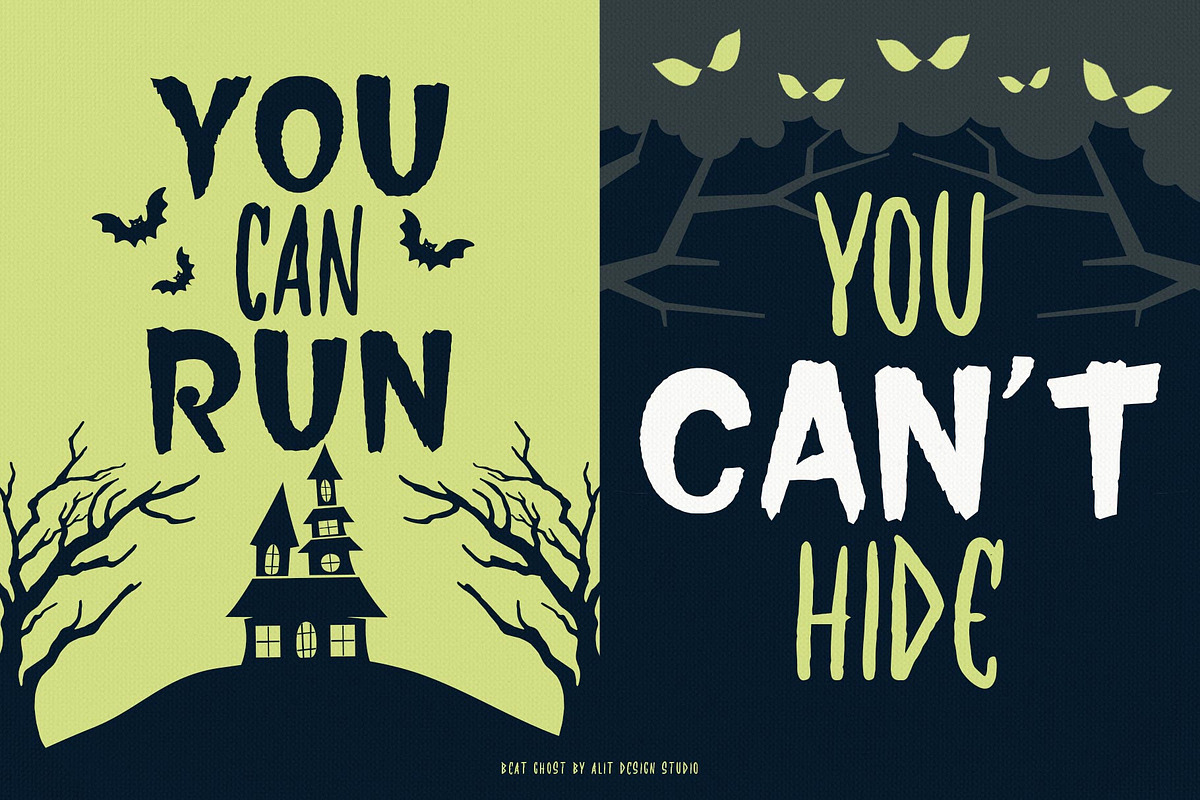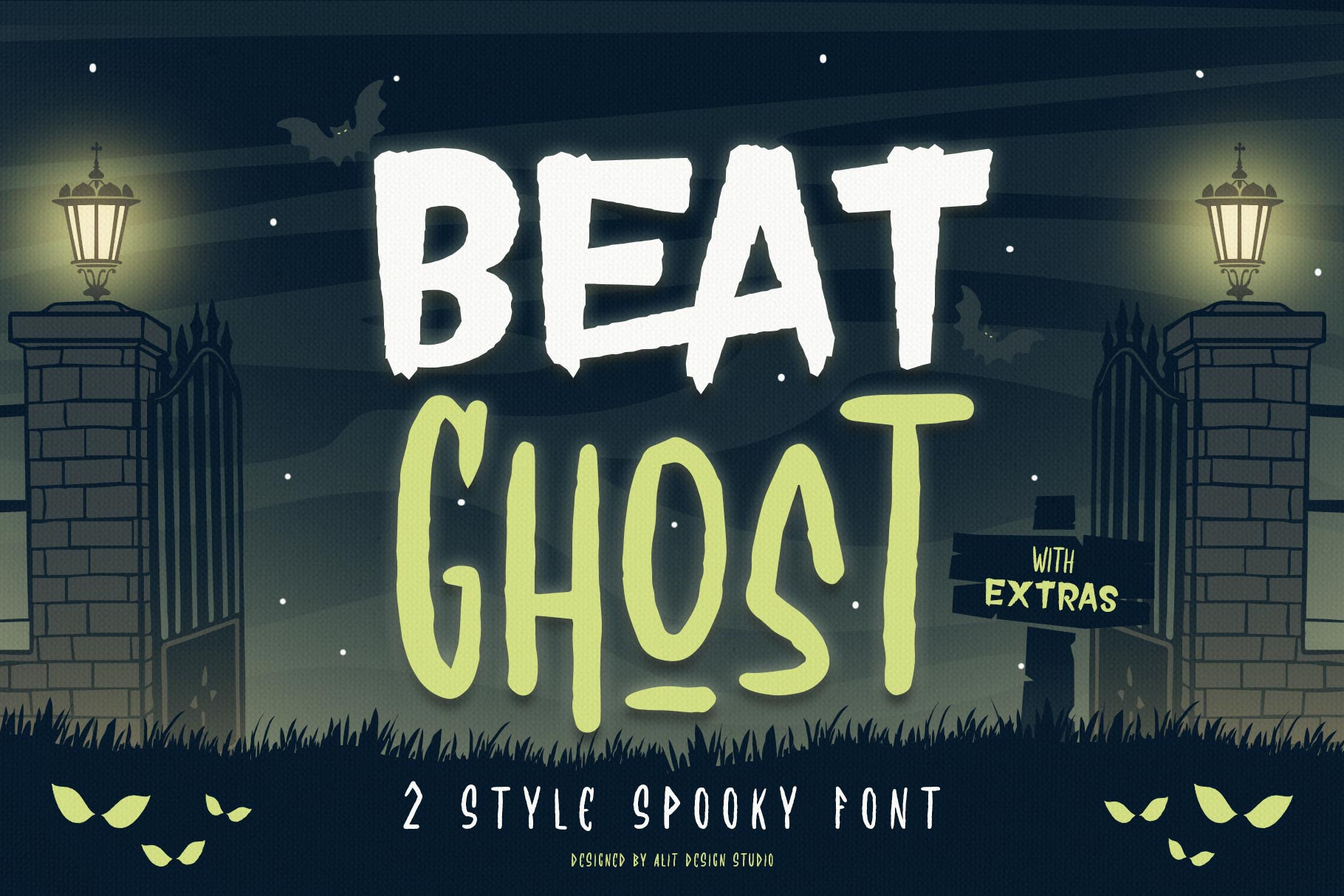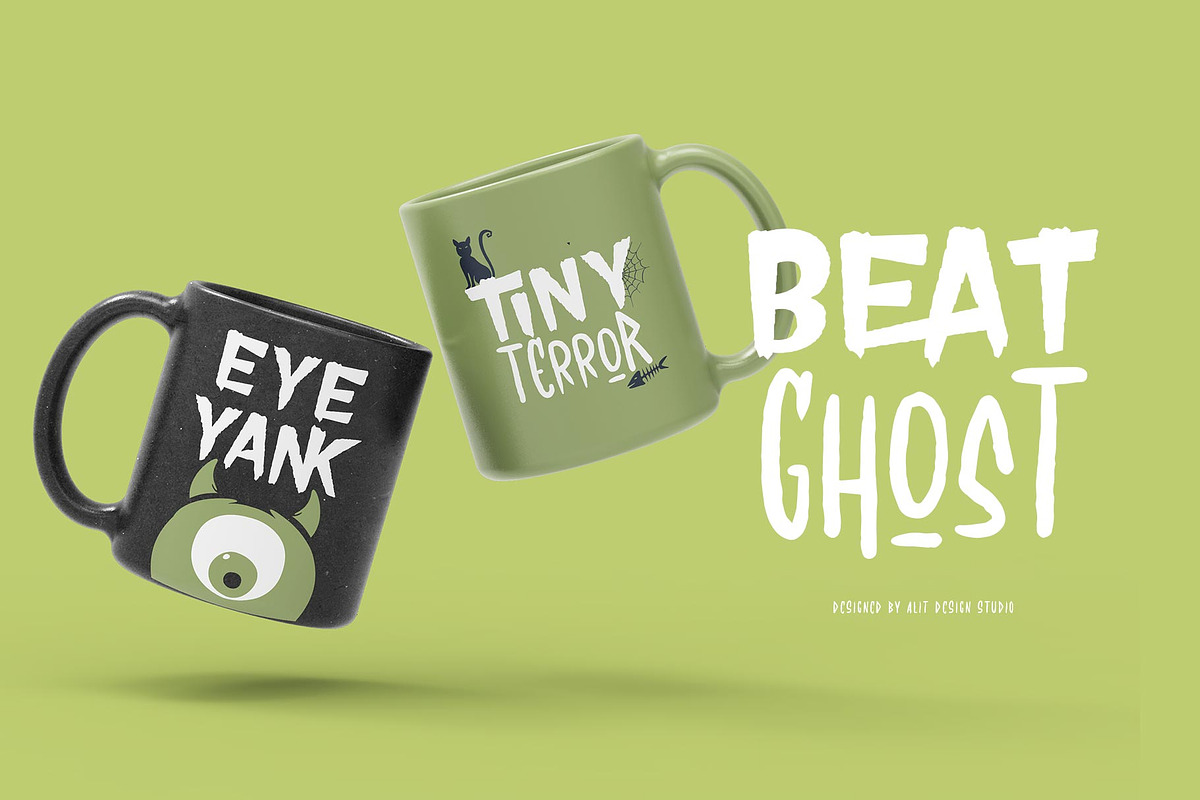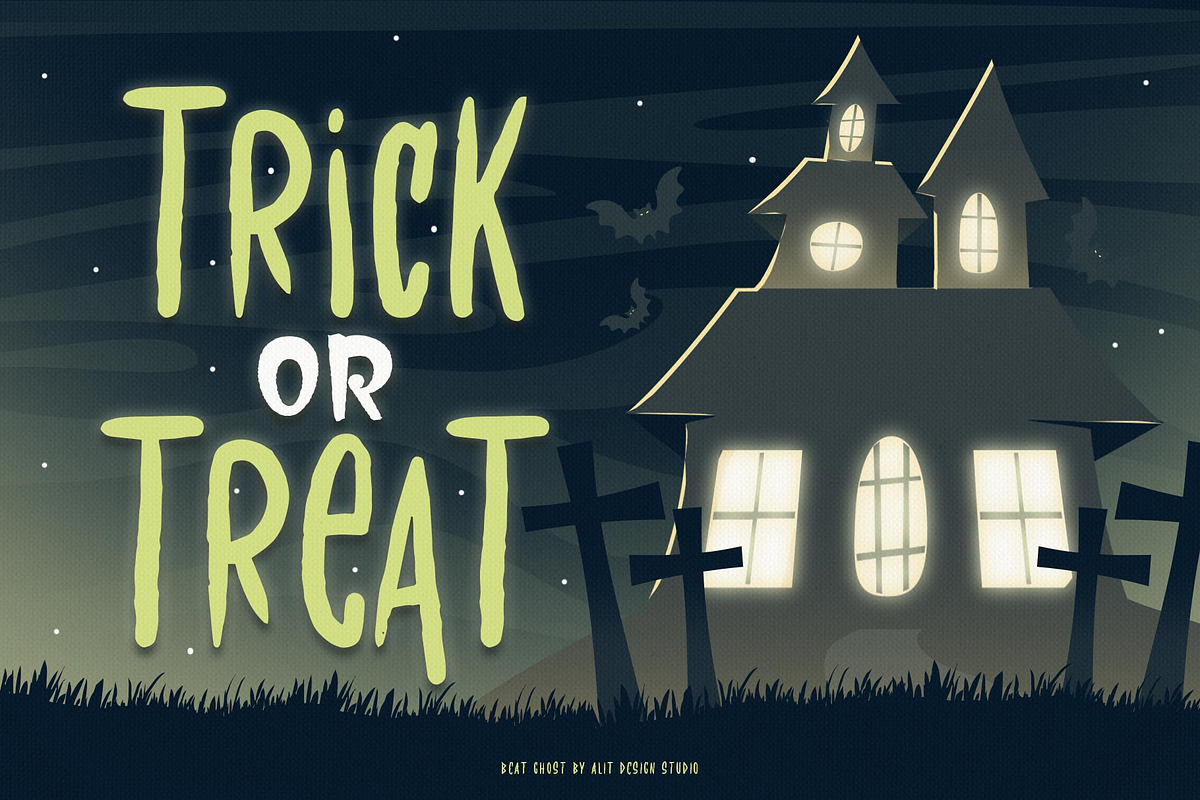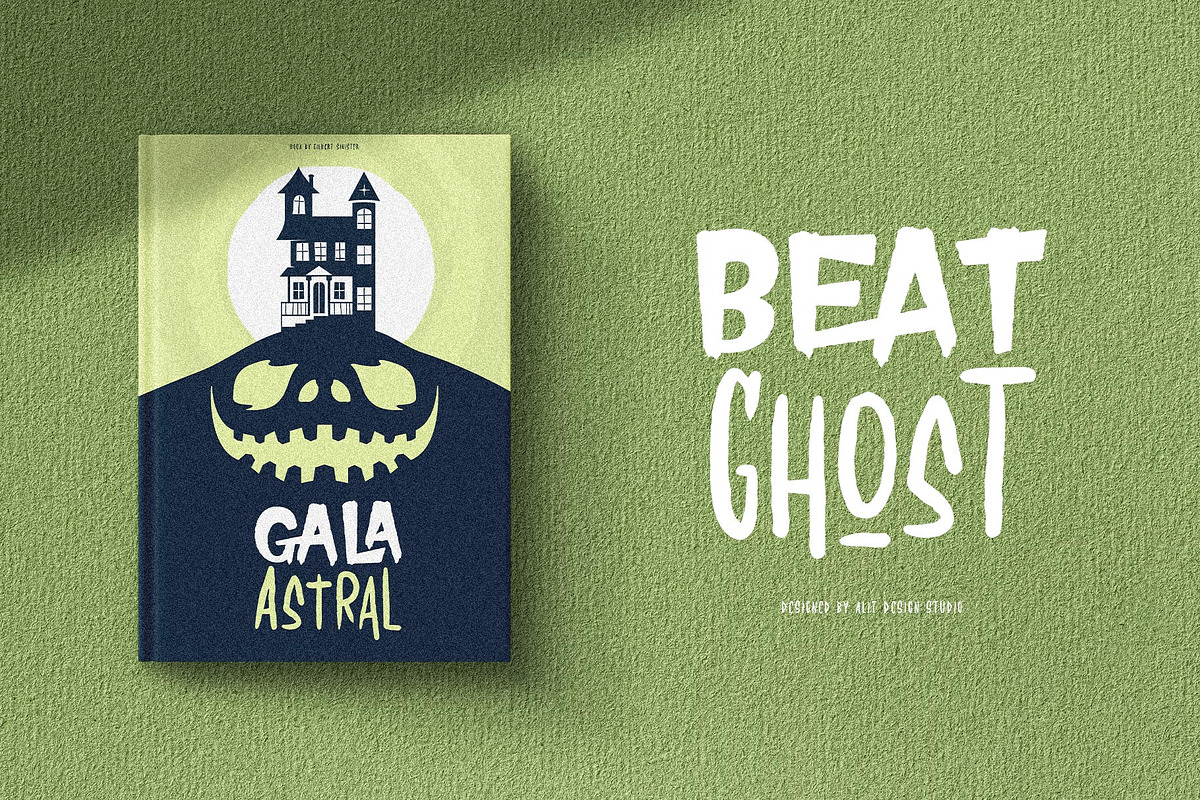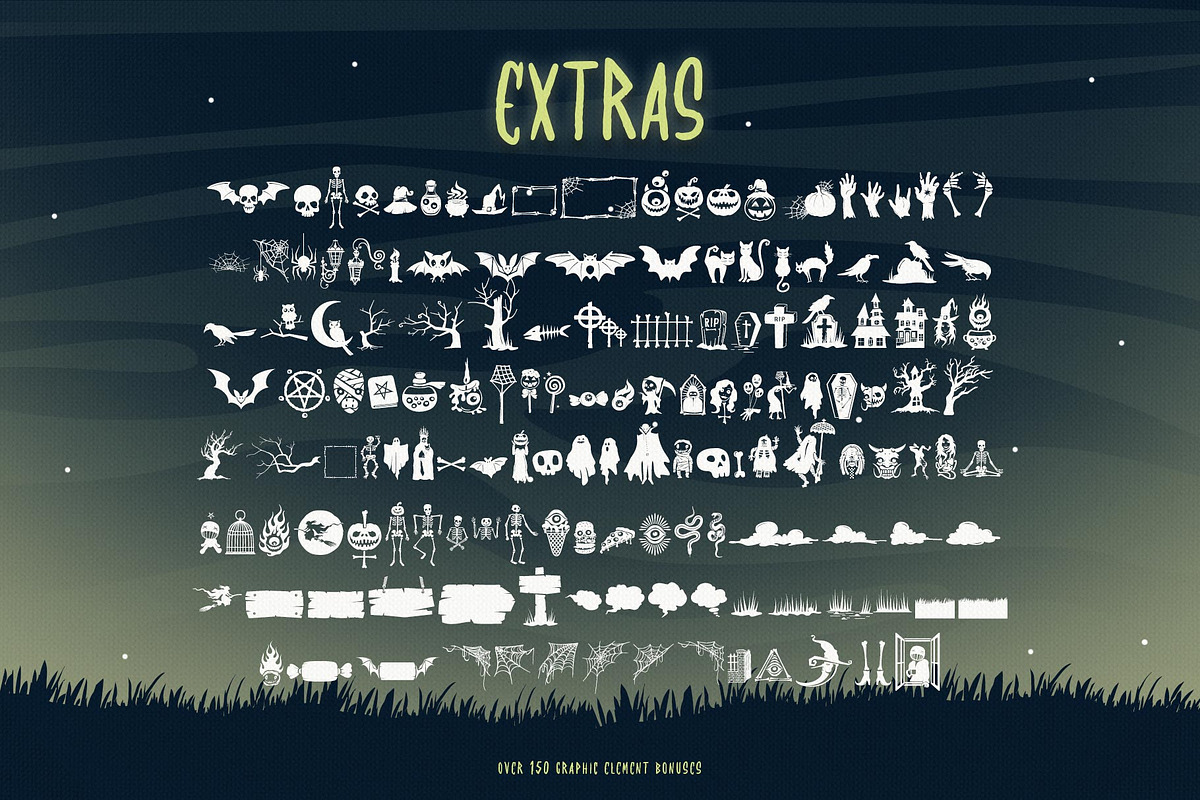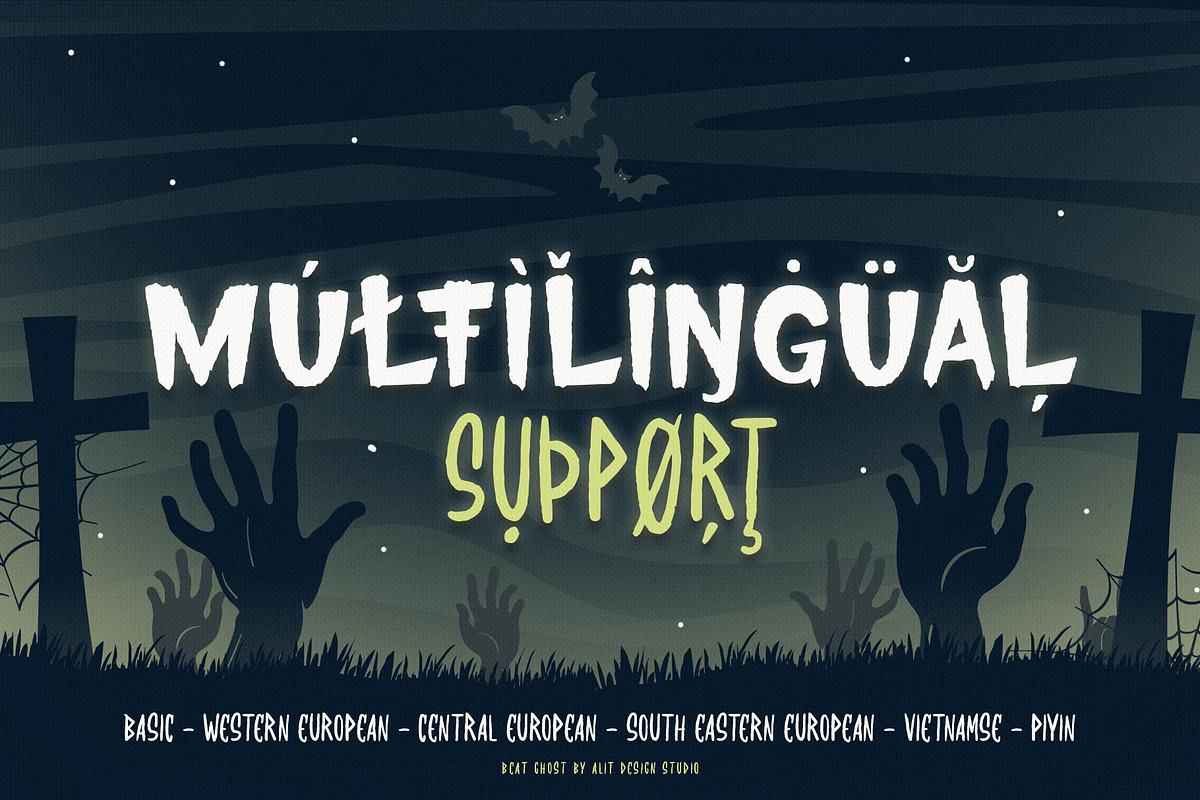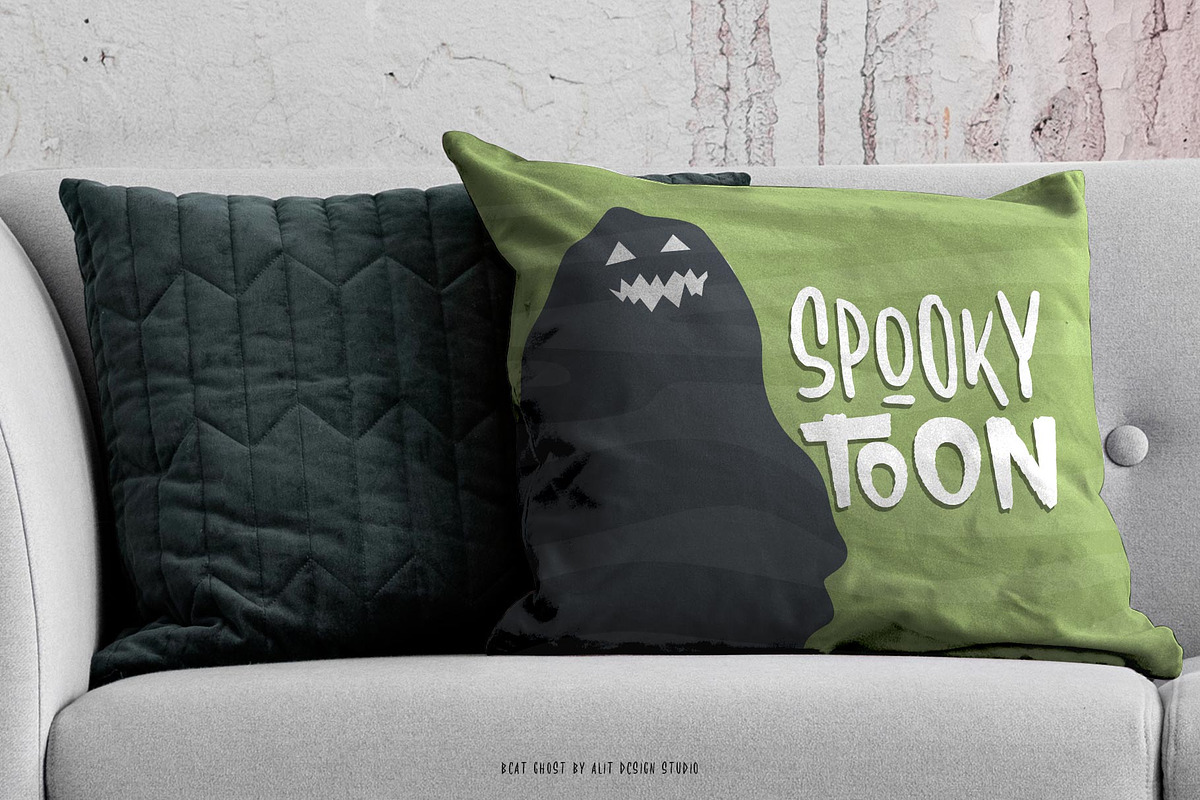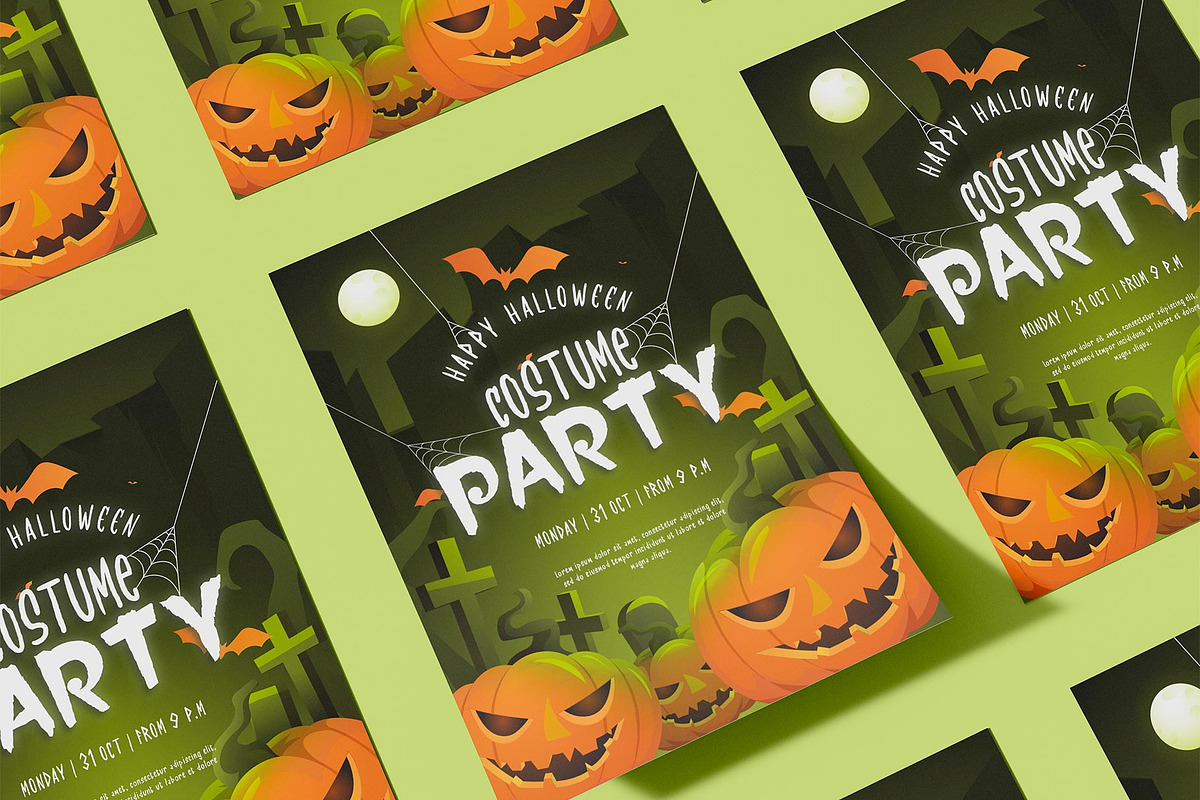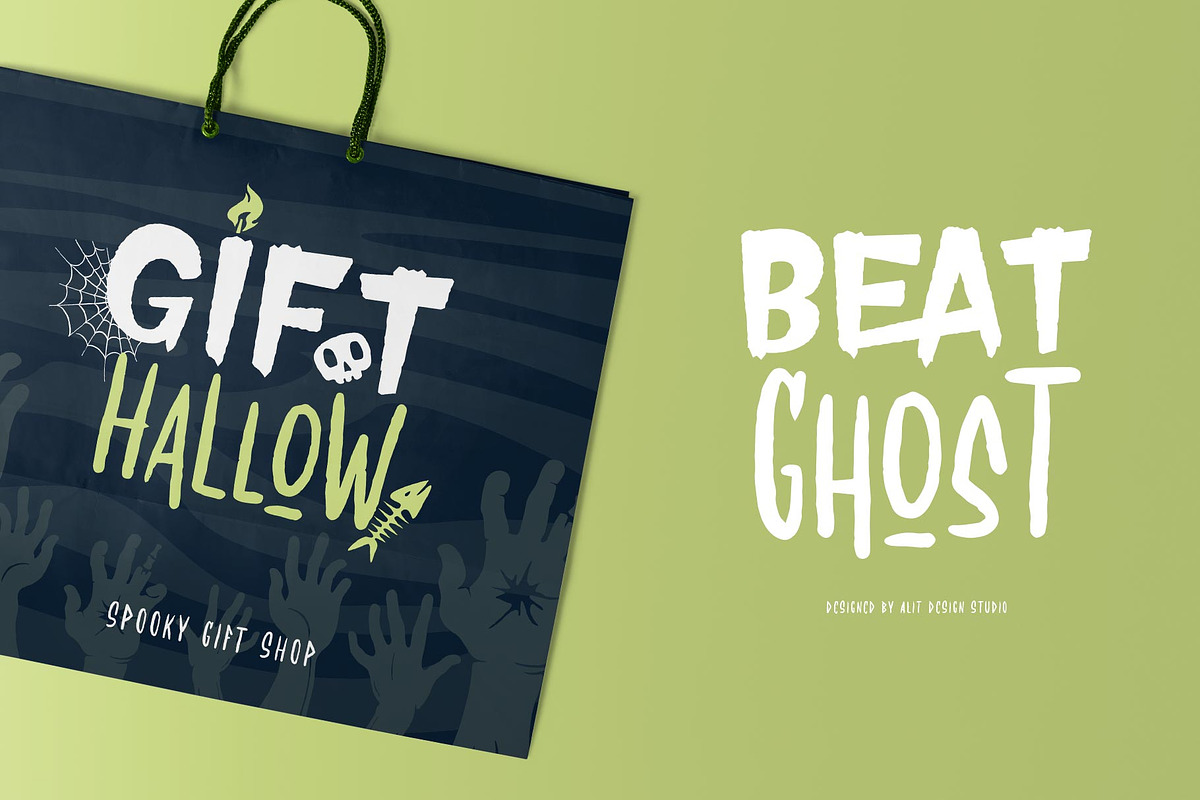
Beat Ghost Typeface
Presenting the ๐โโฌ๐๐ The Beat Ghost Halloween Typeface ๐๐๐ by alitdesign.
The Beat Ghost Halloween Typeface is designed for the needs of design concepts themed about Halloween and events in October and November. The Beat Ghost Halloween Typeface has a horror character with a character shaped like distortion character, making the horror Halloween themed design concept even better and unique.
๐๐The Beat Ghost Halloween Typeface also gets a bonus character of 150 Halloween-themed illustrations that make creating designs even easier. Simply by downloading The Mouse Moon Halloween Typeface, creating a Halloween themed design is very quick and easy.
The Mouse Moon Halloween Typeface is perfect for magazine cover designs, brochures, flyers. Instagram ads, Canva Design and so on with halloween and dark concepts. besides that this font is very easy to use both in design and non-design programs because everything changes and glyphs are supported by Unicode (PUA).